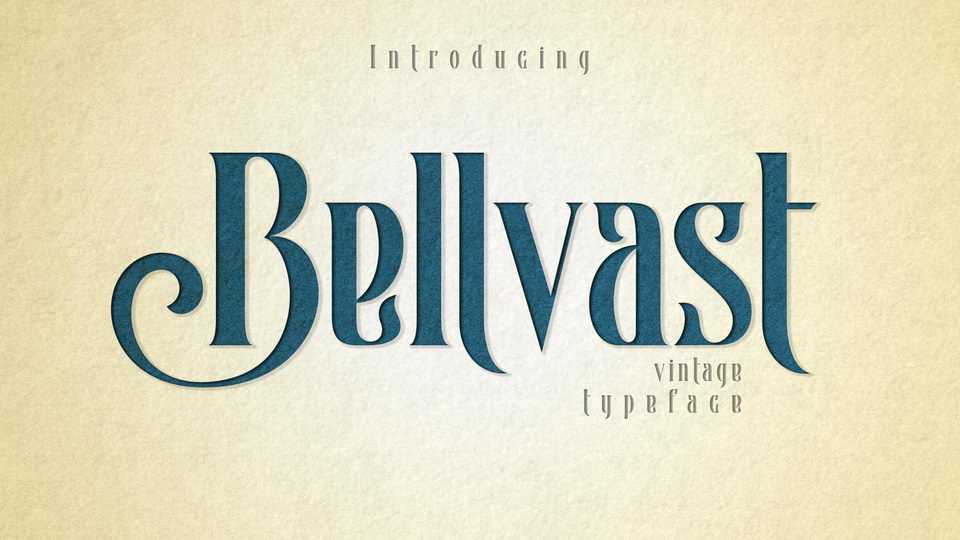
Download Bellvast font, a stunning vintage typeface with fancy decorative elements. Bellvast font is ideal for vintage design, logos, labels, signage and other artworks.
Designer: Typealiens